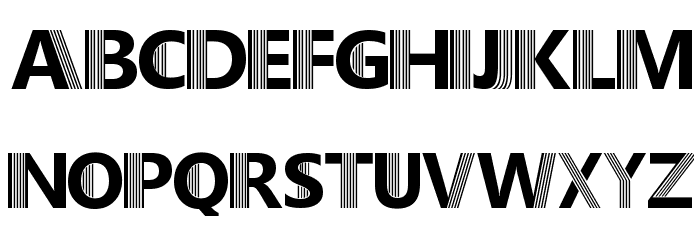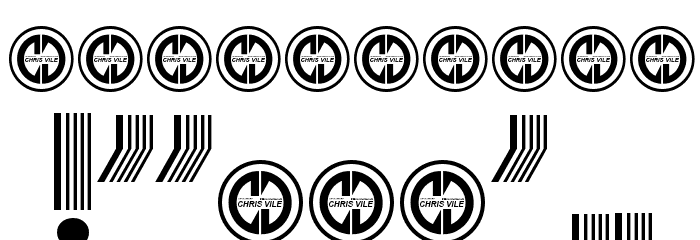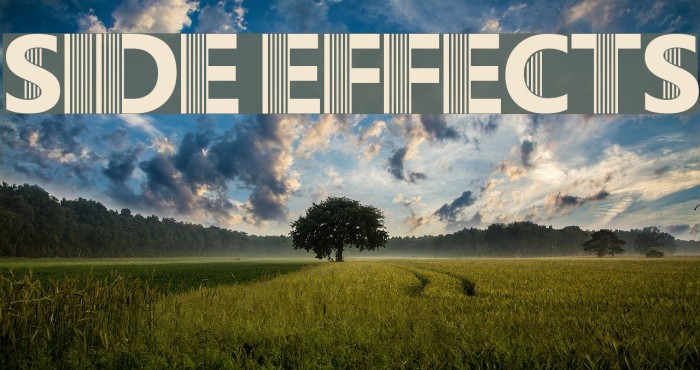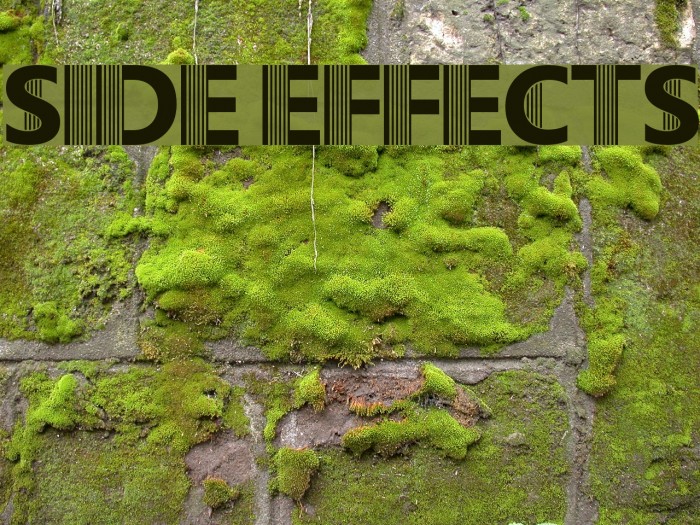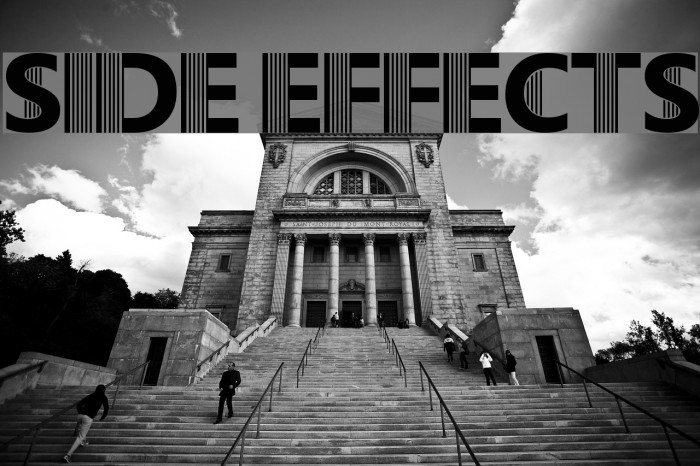
Side Effects Font
This font features a bold, geometric design with a unique striped pattern that creates a sense of movement and depth. The uppercase letters are particularly striking, with alternating thick and thin lines that give them a dynamic, almost optical illusion effect. The font maintains a consistent width across all characters, contributing to its modern and structured appearance. The special characters and numbers follow the same design principles, ensuring a cohesive look throughout. This font is ideal for projects that require a bold statement and a contemporary edge.
A bold, geometric font with dynamic striped patterns for a modern look.